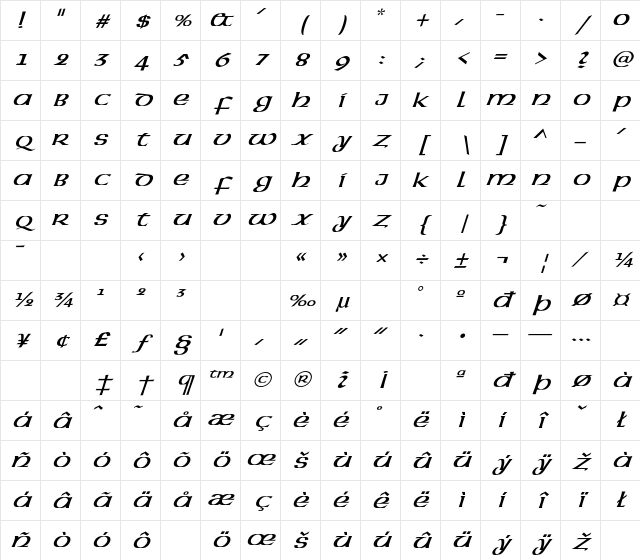
Uncial_Italic Normal
Design Context for Uncial_Italic
Uncial_Italic is a composed and adaptable typeface that performs quietly and consistently across a wide range of design contexts. The slanted form adds forward momentum and visual energy.
Pro Tip: Use Uncial_Italic for emphasis, pull quotes, and subheadings where its slanted energy can add rhythm to the layout.